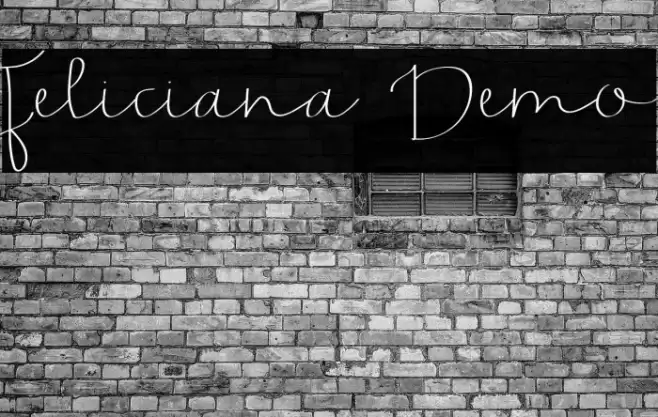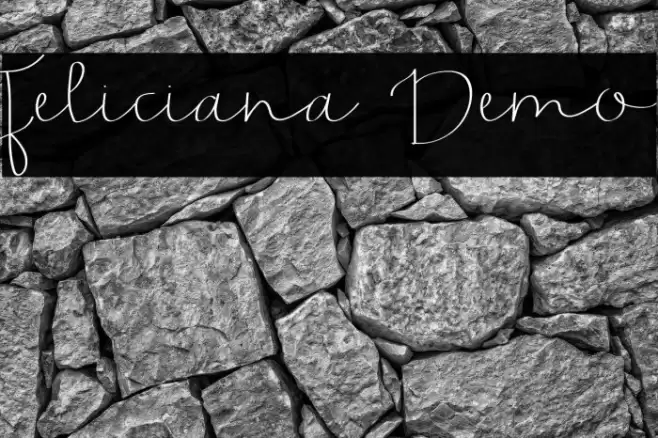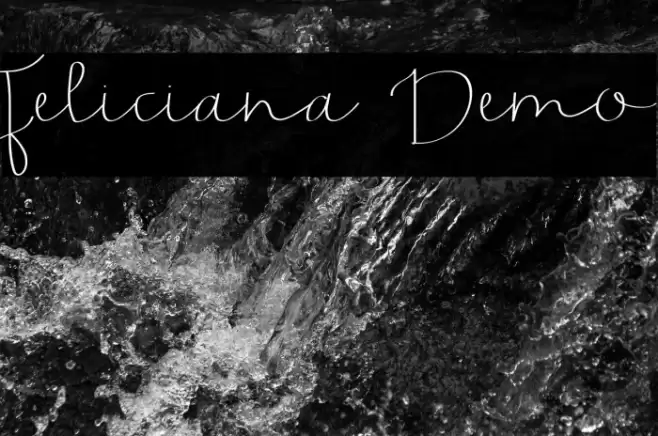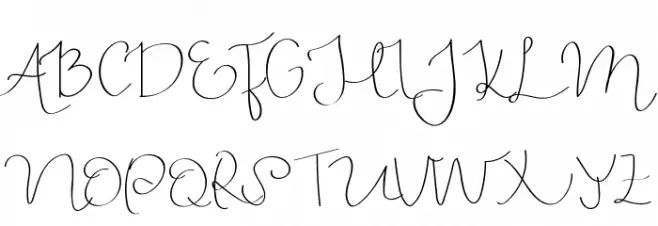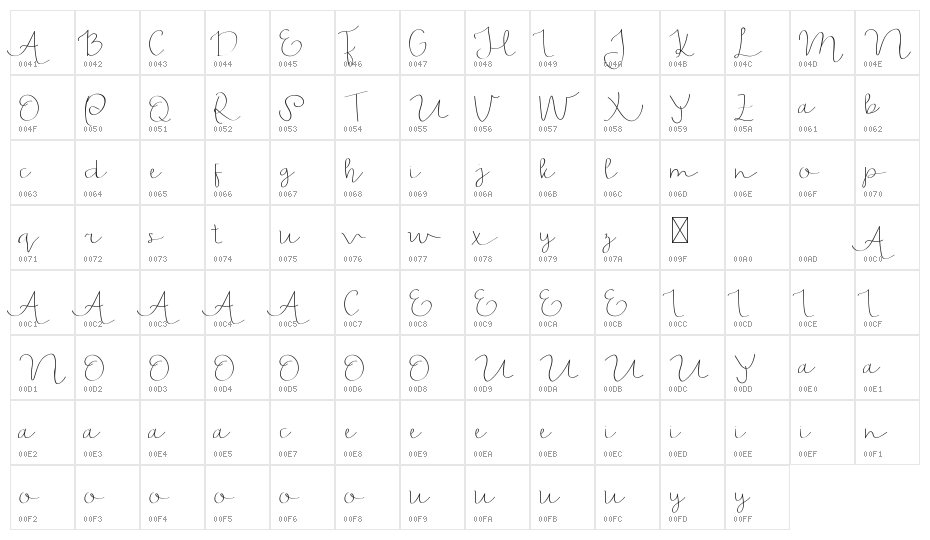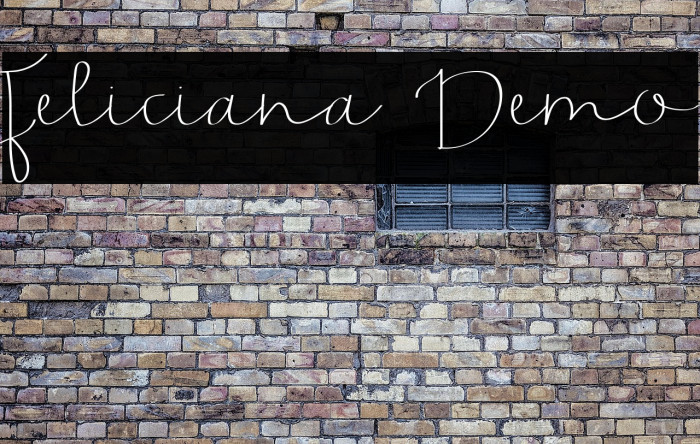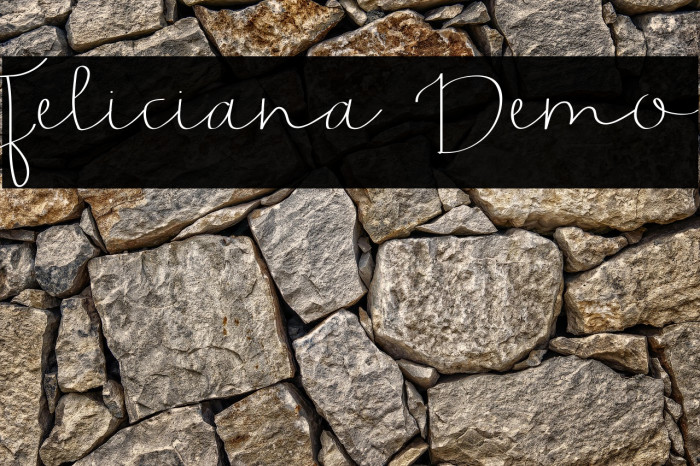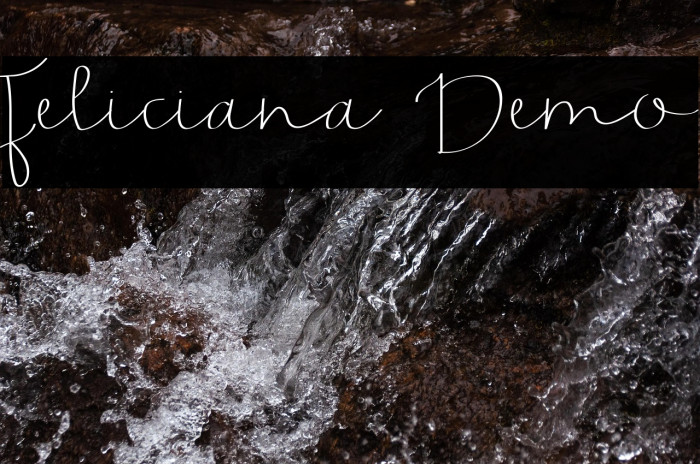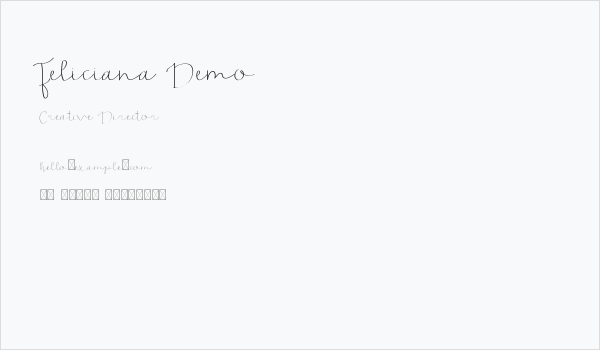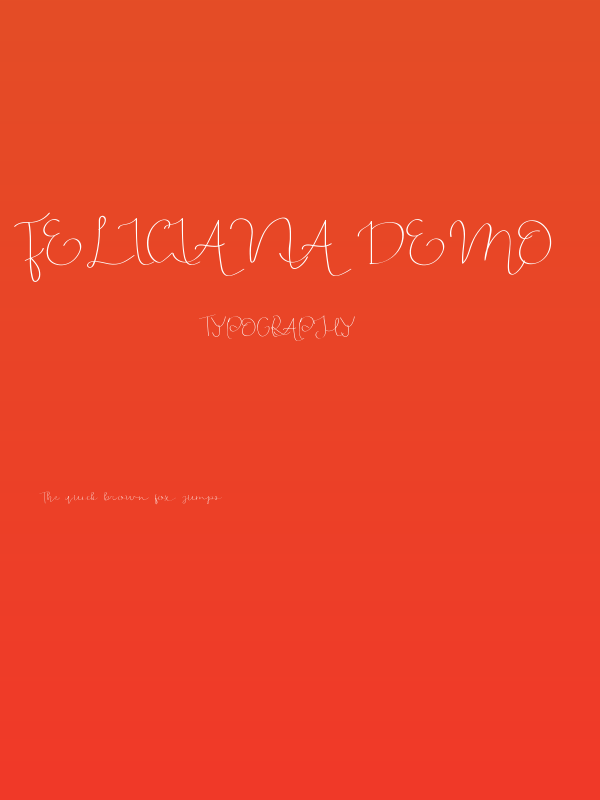
Feliciana Demo Font
Feliciana Demo Description
This font features a delicate and elegant script style, characterized by its flowing, interconnected letters that mimic the fluidity of cursive handwriting. The strokes are thin and graceful, with a consistent line weight that adds to its refined appearance. The uppercase letters are slightly more embellished, with subtle loops and curves, while the lowercase letters maintain a simpler, yet equally sophisticated form. This font exudes a sense of elegance and charm, making it suitable for formal invitations, branding, and decorative purposes.
A delicate and elegant script font with flowing, interconnected letters from Regular fonts.
- Font: Feliciana Demo
- Proposed Projects: Ideal for wedding invitations, elegant branding, greeting cards, and decorative projects.
- Weight: Light
- Overall Style: Elegant
- Use Case: Invitations, Decorative text, Branding